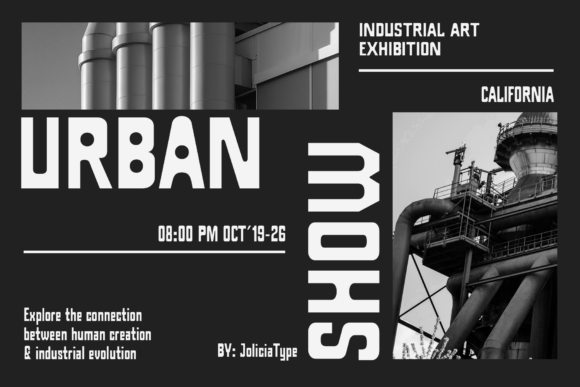
Dobla Sans Font: A Commanding Display Sans-Serif Typeface for Industrial Design
In the realm of typography, few fonts have managed to capture the essence of industrial design as effectively as Dobla Sans. This commanding display sans-serif typeface is engineered for strength, impact, and high functionality, drawing its inspiration from the raw, imposing aesthetic of heavy industrial architecture and the robust engineering of factory machinery.
The Inspiration Behind Dobla Sans
Dobla Sans finds its roots in the rugged and resilient world of industrial design. The font’s creator sought to encapsulate the unyielding structure and modernity of industrial architecture and machinery, translating these elements into a typographic form that exudes power and endurance. The result is a font that is both assertive and elegant, with clean geometric forms and subtly rounded edges that convey a sense of enduring modernity.
Key Features of Dobla Sans
- Clean and Assertive Geometric Forms: Dobla Sans boasts a geometric design that is both simple and powerful, making it perfect for a wide range of applications.
- Subtly Rounded Edges: The font’s rounded edges add a touch of softness to its overall appearance, balancing its assertive nature with a hint of approachability.
- 5 Distinctive Styles: The Dobla Sans family offers an impressive range, spanning from Condensed to Expanded, providing designers with a versatile toolkit for various design projects.
- Width Flexibility: With its remarkable width flexibility, Dobla Sans allows designers to precisely control space and emphasis, making it ideal for eye-catching headlines, aggressive branding, dominant industrial signage, and daring product packaging.
Applications of Dobla Sans
Dobla Sans is more than just a font; it’s a statement built for a massive scale. Its versatility and impact make it suitable for a wide range of applications, including:
- Eye-Catching Headlines: Dobla Sans’s commanding presence makes it perfect for headlines that demand attention.
- Aggressive Branding: The font’s industrial aesthetic and assertive nature make it an excellent choice for brands looking to convey strength and resilience.
- Dominant Industrial Signage: Dobla Sans is designed to withstand the demands of industrial environments, making it an ideal choice for signage that needs to be seen and remembered.
- Daring Product Packaging: The font’s unique blend of modernity and industrial grit makes it perfect for product packaging that needs to stand out on crowded shelves.
Injecting Authenticity into Your Design Project
Dobla Sans offers designers the opportunity to inject an authentic sense of industrial typography into their projects. Its bold, straightforward, and inescapable presence makes it an excellent choice for designers looking to add a touch of industrial grit to their work.
Whether you’re working on a branding project, signage, or product packaging, Dobla Sans provides a level of authenticity that is hard to match. Its commanding presence and industrial aesthetic make it an excellent choice for designers looking to create a lasting impression.
Dobla Sans is a font that is built for impact. Its commanding presence, industrial aesthetic, and versatility make it an excellent choice for designers looking to add a touch of industrial typography to their projects. With its clean geometric forms, subtly rounded edges, and 5 distinctive styles, Dobla Sans is a font that is sure to leave a lasting impression.